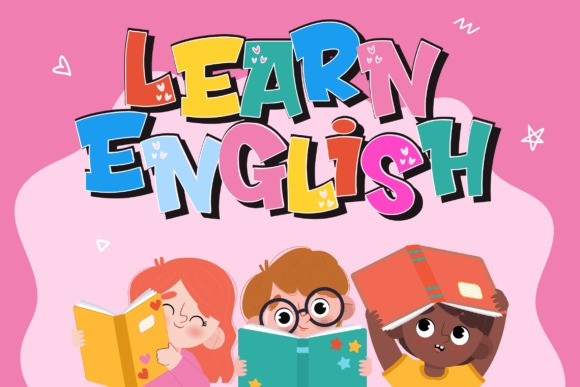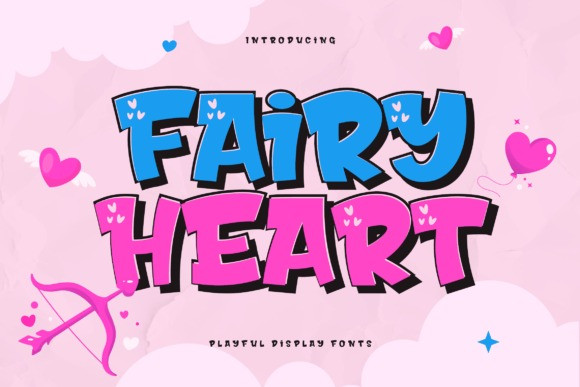
Fairy Heart Font
Fairy Heart Font – Cute and lovely display font that comes with a unique style to make it suitable for any purpose, such as handcrafts, product packaging, quotes, product design, craftsmen, labels, or any other projects that need a playful and lovely touch.